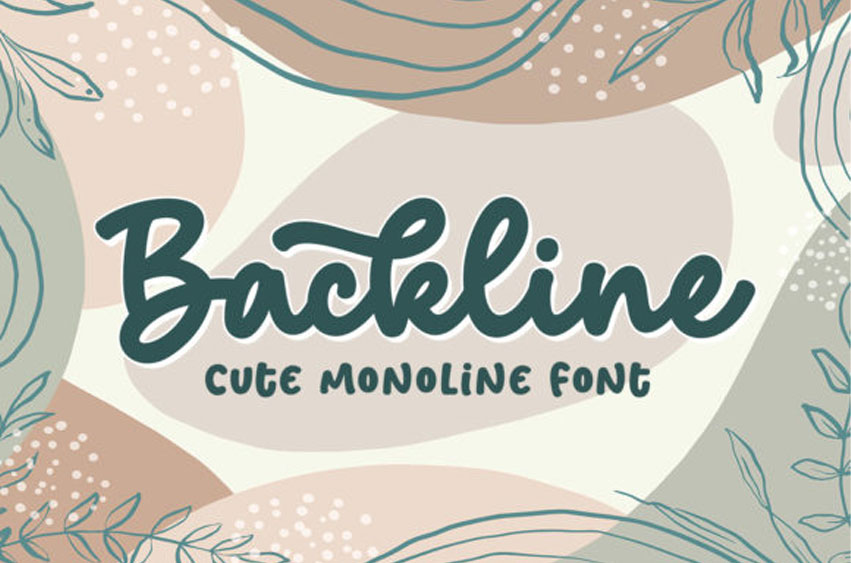
Backline Monoline Font is a cute and simple lettered handwritten font that can be used for all chalkboard quotes or teaching material!
Its authentic look will add a personal and realistic feel to your designs.